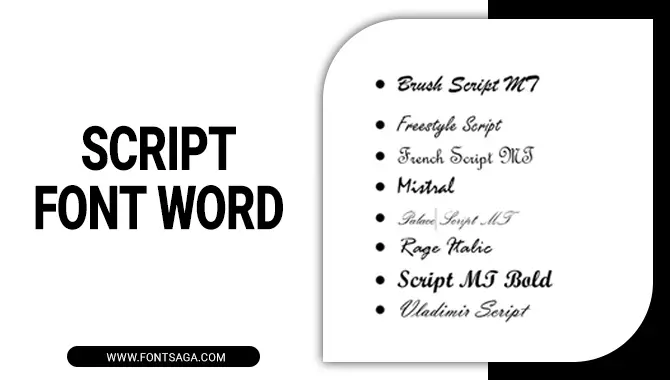
A script font is a typeface that imitates the look of handwritten or calligraphic writing. It adds elegance, personality, and creativity to designs.
Script fonts can be formal or casual, commonly used in invitations, logos, branding, and design projects requiring sophistication. Typography is an art form that can genuinely enhance any design project. And script fonts are the way to go when adding elegance and personality to your designs.
Script fonts bring elegance and sophistication to your plans, allowing you to express creativity and uniqueness. Ideal for invitations, greeting cards, logos, and branding materials, they can evoke emotions and leave a lasting visual impression. We will dive deep into script font word, exploring their unique characteristics. We will also provide valuable tips on effectively using script fonts.
About Script Font Word – In Details
Script fonts are a popular choice for various design projects, and knowing about them is essential for several reasons. Script fonts can add a touch of elegance and sophistication to any design, making them ideal for invitations, logos, and branding materials.
Understanding the characteristics of different script fonts can help designers choose the most appropriate one for their specific project. Here we discuss script font words.
Scripts Font Words Unique Characteristics
People know script fonts for their unique characteristics that distinguish them from other font styles. These fonts mimic the elegant and flowing handwriting of calligraphy, adding a touch of sophistication and charm to any design or document.
The main distinguishing feature of script fonts is their fluid and interconnected letterforms, which create a sense of movement and grace on the page. This makes them particularly well-suited for projects that require a personal or artistic touch, such as wedding invitations, greeting cards, or logo designs.
Script Font Styles And Examples
With their elegant and flowing appearance, script fonts add a touch of sophistication to design projects. Different types include formal scripts, simple scripts, calligraphic script fonts, hand-lettered script fonts, and modern script fonts. Standard writings offer tradition and formality, while simple hands have a relaxed vibe.
Formal Script Fonts
Formal script fonts are characterized by their elegant and sophisticated appearance. They are frequently used for weddings, invitations, and certificates. Edwardian Script, Copperplate, and Bickham Script are famous examples of formal script fonts. These fonts showcase intricate loops and flourishes, creating a classic and timeless aesthetic.
Calligraphic Script Fonts
Adding a touch of artistry and refinement to your designs, calligraphic script fonts capture the elegance and grace of calligraphy. These popular fonts include Brush Script, Edwardian Script, and Zapfino. They are used for formal invitations, wedding stationery, and classy branding; calligraphic script fonts bring a unique flair to your projects.
Hand-Lettered Script Fonts
Hand-lettered script fonts offer a personal touch to your designs. Artists meticulously craft these fonts and feature unique lettering styles. They come in various elegant, formal, playful, and whimsical styles. Hand-lettered script fonts are commonly used for invitations, greeting cards, logos, and other designs that require a personal or artistic feel. With their flowing and graceful letterforms, these fonts add charm and creativity to any project.
Modern Script Fonts
Injecting flair and elegance into your designs is easy with modern script fonts. These fonts, such as “Lavanderia,” “Madina Script,” and “Alex Brush,” mimic the graceful flow of handwriting. Perfect for invitations, logos, and branding, they add a personal touch to your projects.
Always prioritize legibility and readability in smaller sizes or body text when using script fonts. Choose from a wide array of modern script fonts available for free download, and elevate your designs with sophistication.
script fonts add a touch of elegance and personality to any design. They can use invitations, logos, and branding materials in creative projects. Howit is essential to use them wisely, confusing using them wisely, and consider avoiding overcrowding important. To explore different essentials and examples of script fonts, check out our comprehensive guide on the art of typography.
And if you’re looking for inspiration or want to download free script font words, we’ve curated a list of the best ones available. Elevate your designs with the beauty of script fonts today. We hope the above guideline will be very helpful for you.
1.Why Should You Use Script Fonts?
Ans: Script fonts are a great choice because they bring elegance and sophistication to any design. With the ability to evoke nostalgia and vintage charm, they’re perfect for traditional designs like wedding invitations or greeting cards. Plus, script fonts can add a personal touch and help create a unique branding identity.
4.What Are The Best Script Fonts?
Ans: The best script fonts vary depending on the design or project. Some popular options include Brush Script, Lobster, and Pacifico, while others like Alex Brush, Great Vibes, and Allura are highly regarded.
5.When Should You Not Use Script Fonts?
Ans: Script fonts should be avoided for large amounts of text, as they can be hard to read. They may not be appropriate for formal or professional documents and situations where legibility is essential, like signage or labels.